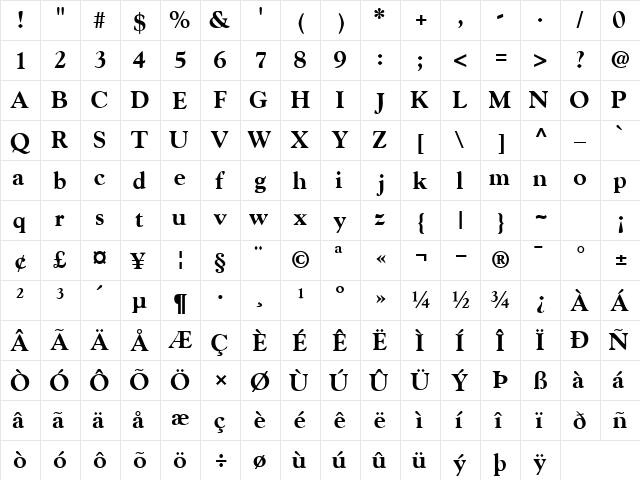
GoudyBlackSSK Regular Font Preview
GoudyBlackSSK Regular
Design Context for GoudyBlackSSK Typeface
GoudyBlackSSK is a composed and adaptable typeface that performs quietly and consistently across a wide range of design contexts.